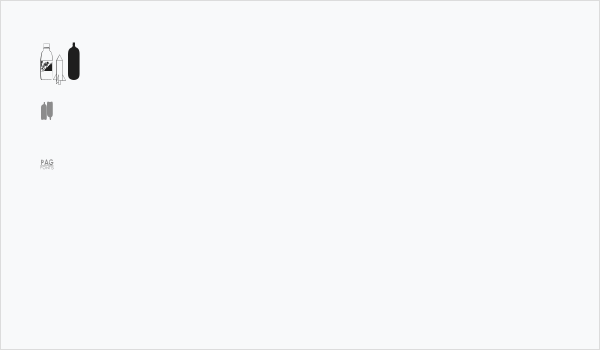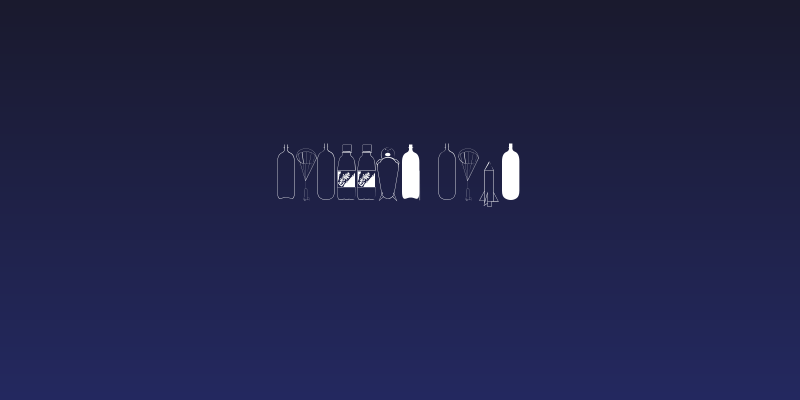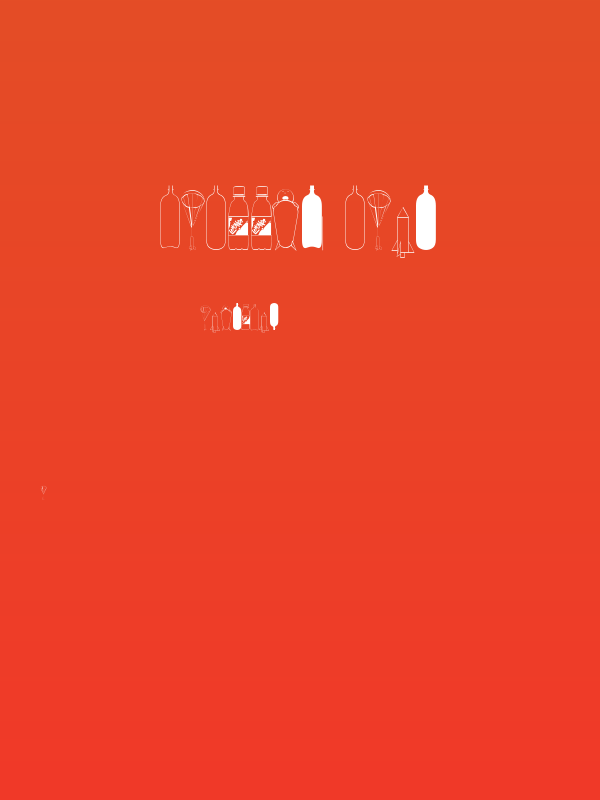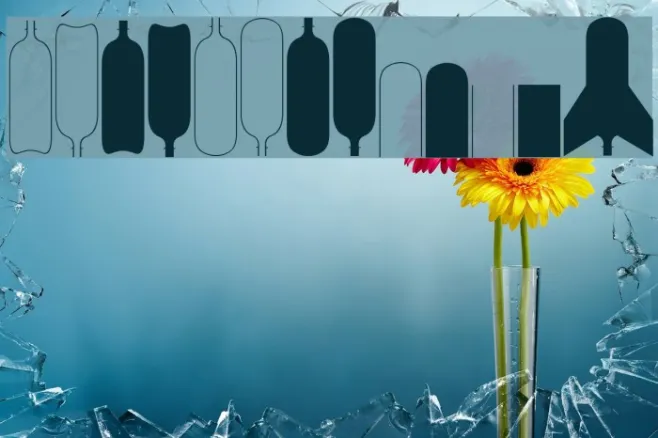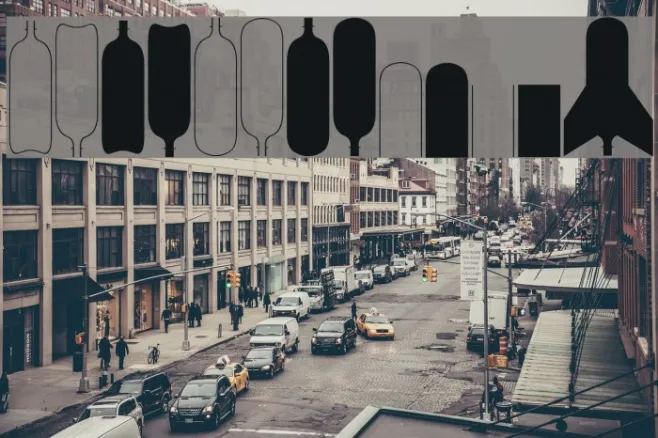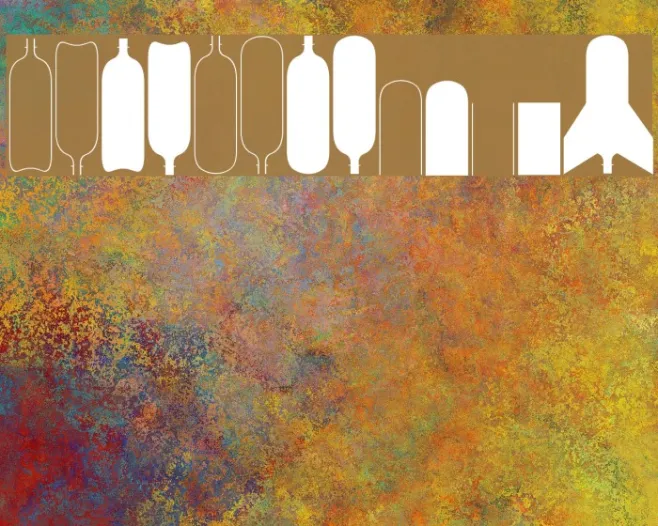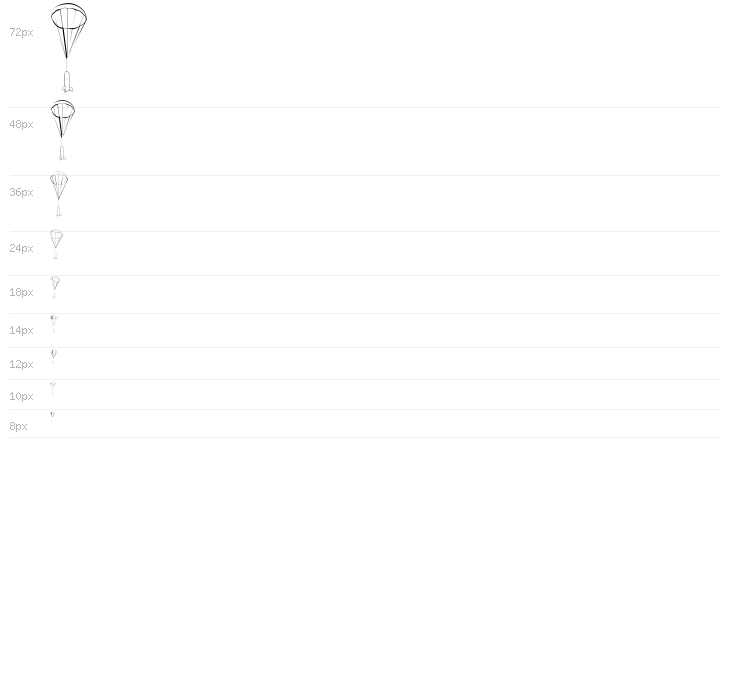
Water Rocket PG Font
Water Rocket PG Description
A decorative and illustrative font composed of water rocket-related icons such as bottles, rockets, pumps, parachutes, and the Earth, arranged to represent each character. The style is playful and thematic, with high visual detail and strong black-and-white contrast.
| Overall Style | Decorative, Playful, Thematic |
| Use Case | Headlines, Posters, Educational graphics, Themed logos |
| Proposed Projects | STEM education materials, science fair posters, children's activity books, themed event invitations. |